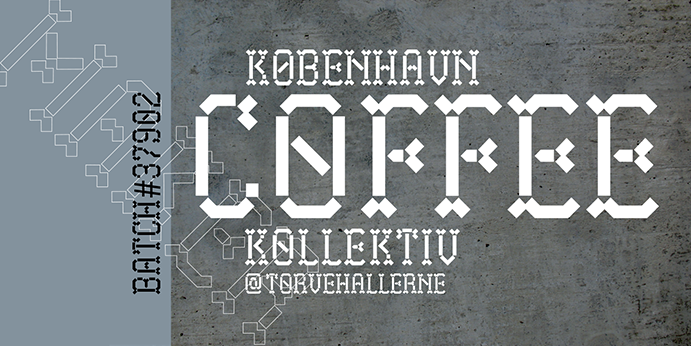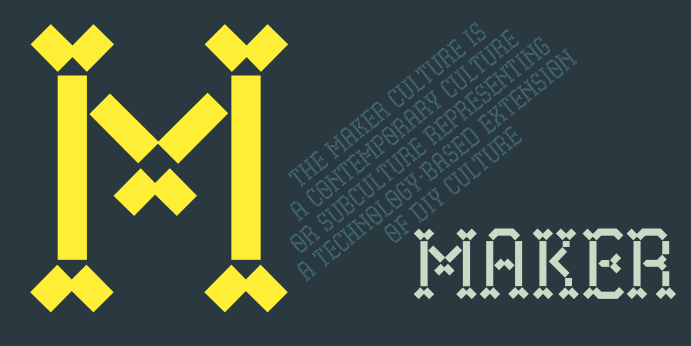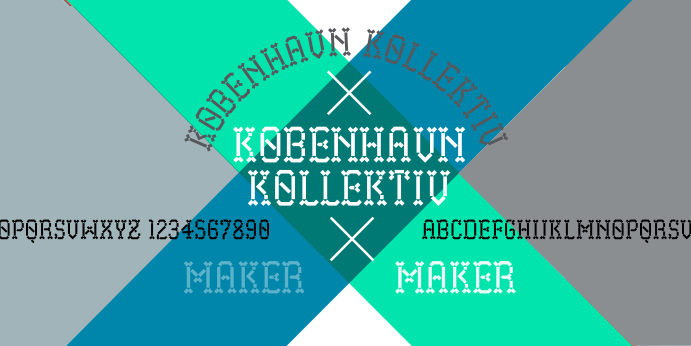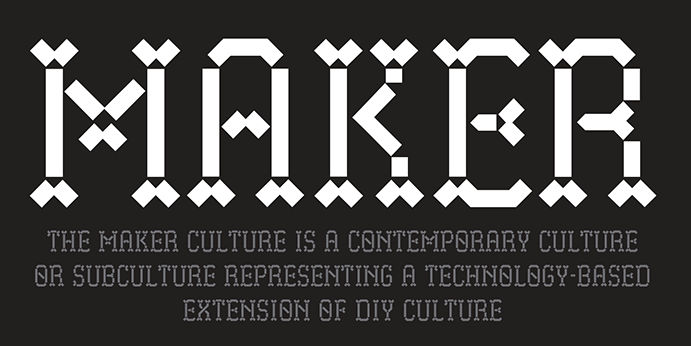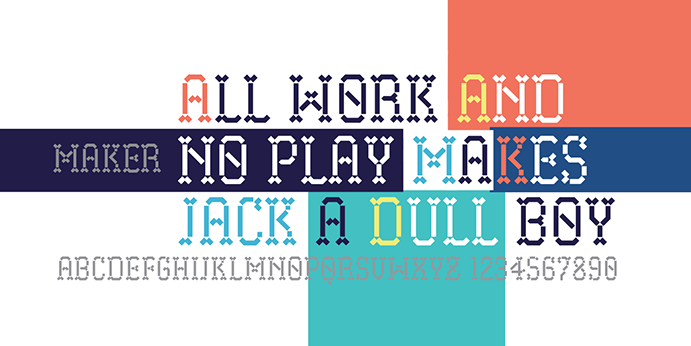
Maker is a pixel font published by Wilton Foundry.
Maker, the font, pays homage to the Maker constructivist culture. Especially the sparked community interaction, and exchange of ideas through social meetings in shared spaces. With Maker you have hints of a Gothic minuscule heritage and pixel components that is carefully constructed into a discreet stencil font. The result is a fresh, contemporary and well grounded font that will shine in any technology, or arts related environment.